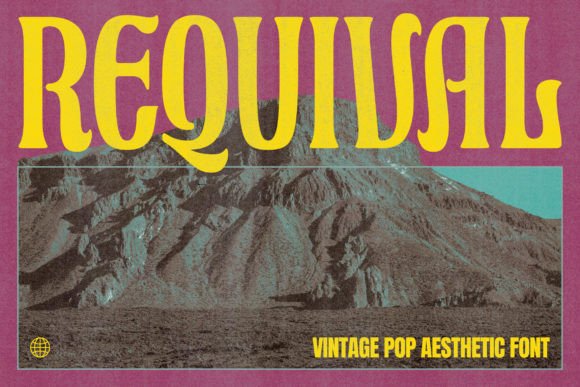
Step into a realm of captivating typography with Requival Font, a stunning display font that harmonizes the vibrance of pop aesthetics with the timeless allure of vintage vibes. This remarkable font family is a masterpiece crafted by konstantinestudio, renowned for their artistic brilliance.
Immerse yourself in a world where creativity thrives and designs come to life. Requival Font is the ultimate choice for those seeking a font that captivates and enchants. Its meticulously designed characters exude a unique charm that elevates your designs to new heights of visual appeal.
Unleash your imagination and let Requival Font be your muse. Whether you're designing logos, branding, signage, decor, books, covers, badges, emblems, clothing, apparel, merchandise, movie titles, or serials, this versatile font delivers an instant pop of personality that leaves a lasting impression.
With Requival Font, you'll discover a font that's more than just a collection of letters. It's a gateway to a world of limitless creative expression, where your designs transcend the ordinary and become extraordinary.
Experience the magic of Requival Font today and embark on a journey of visual storytelling that captivates audiences and leaves them in awe.